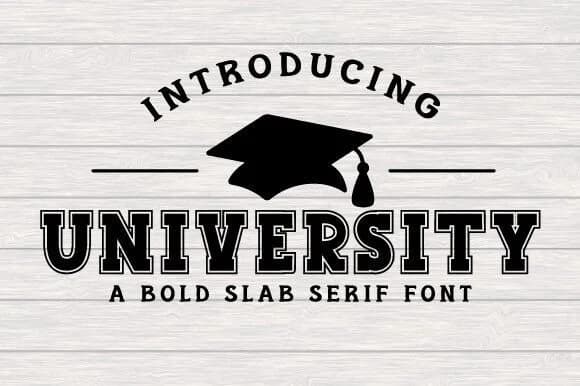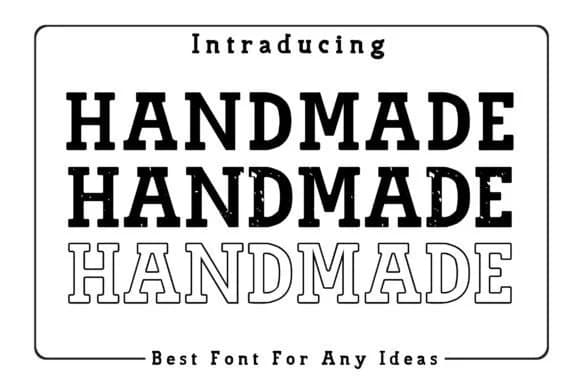
1 / 8About College Font
Imagine laying out a varsity jacket design or sketching a retro sports team poster: you need a font that commands attention without feeling trendy or dated. College, designed by BlackCraft, delivers exactly that. It's a bold slab serif with a confident, athletic edge that works across scales. This typeface performs equally well as a display face for large headlines or used in stacked formats, which opens up creative possibilities for layered compositions and eye-catching visual treatments that really pop on screen or in print.
Sports merchandise branding, athletic event promotions, and university-inspired graphics are natural homes for this font. Think custom apparel hang tags, college-themed social media posts, anniversary badges for community groups, or specialty brand labels that need serious weight and personality. Its sturdy structure means it reads cleanly even at smaller sizes on stickers and product packaging, while larger applications let the slab-serif character truly shine through. You'll find it handles both serious institutional looks and playful, youthful designs with genuine poise.
Stacked letter formats showcase what College can do. Build dimension into single-word graphics or create mirrored effects for bold poster designs. The font's weight also gives stickers and embroidered patches real presence. Grab it on Creative Fabrica and start building visuals that genuinely stand out.
- Sturdy, Confident, College
College Font is a slab serif font that shines as a display or heading face. Pair it with a clean sans-serif or serif font for body text β the contrast creates a clear hierarchy while the two styles stay balanced and easy to read.
College Font
by BlackCraft